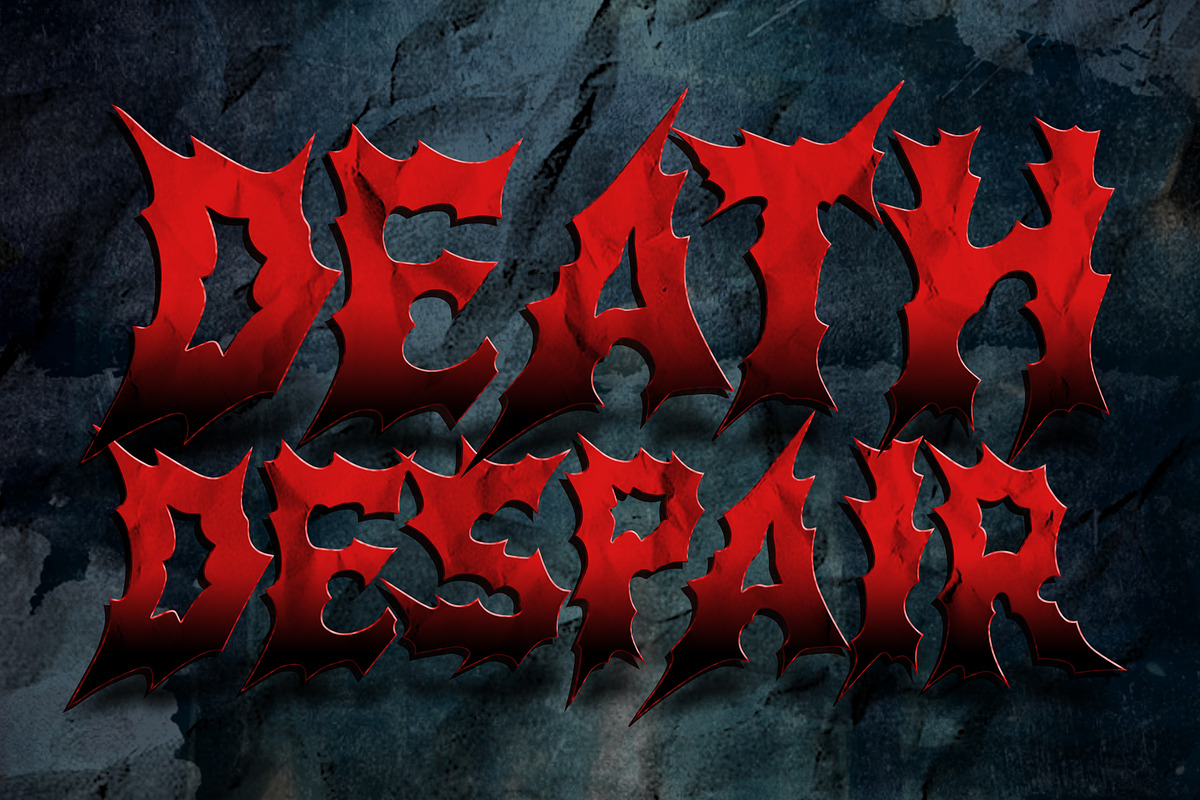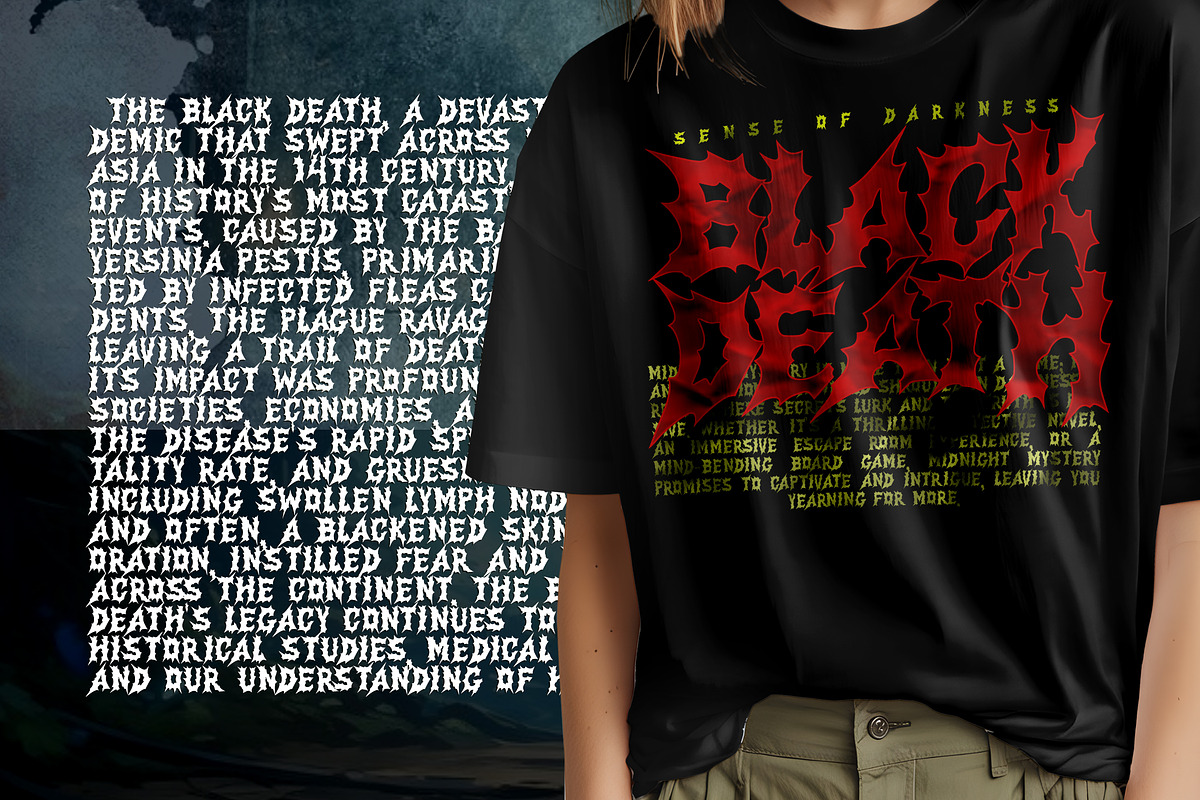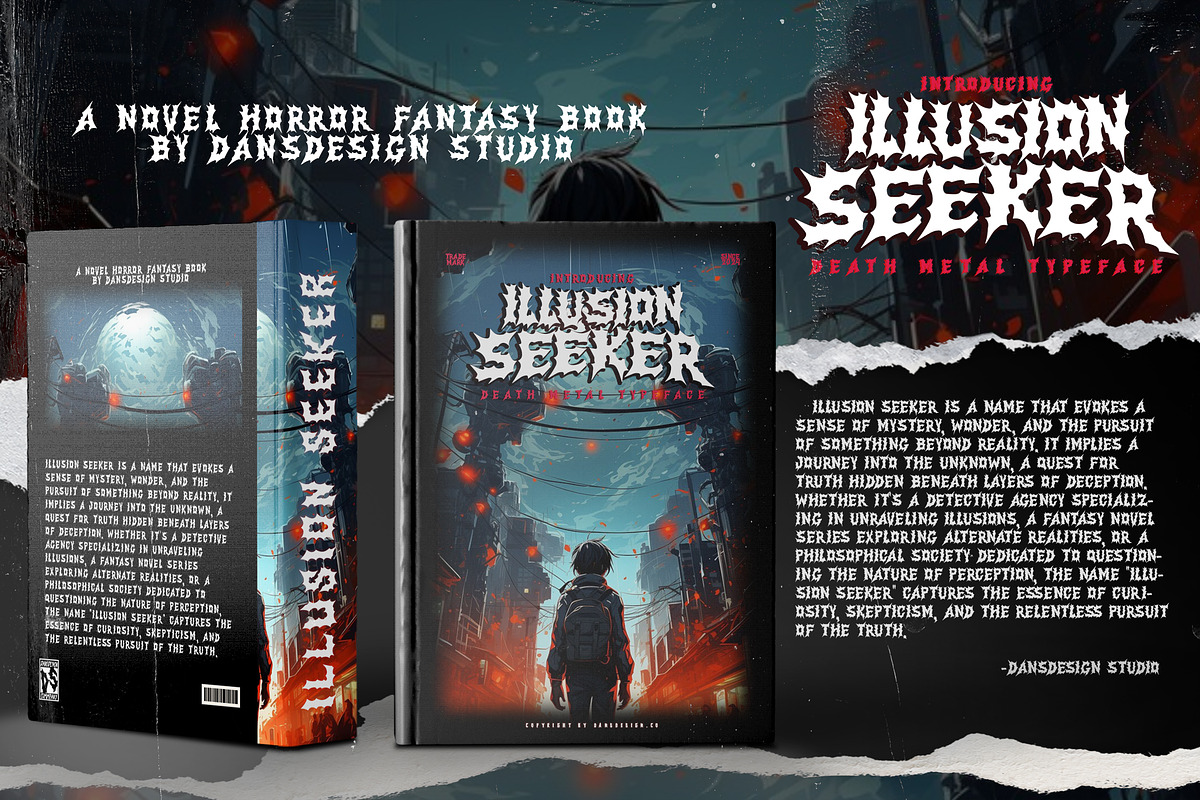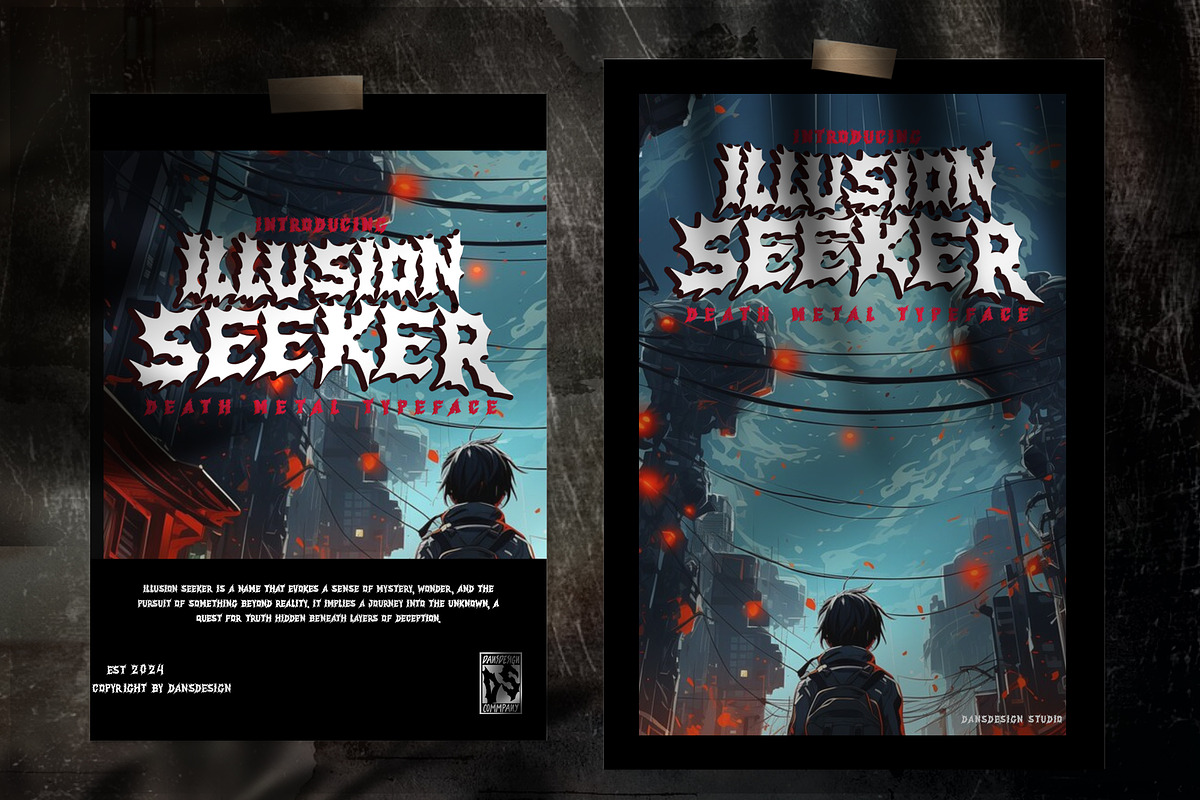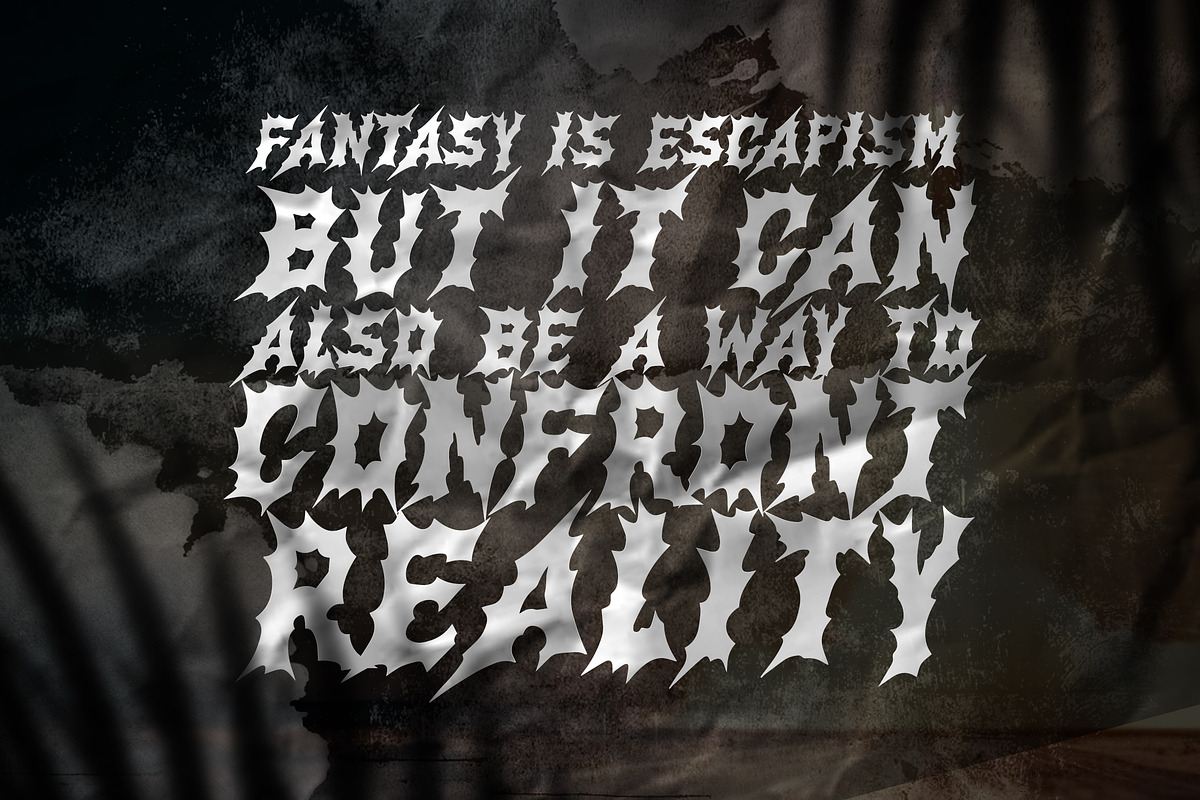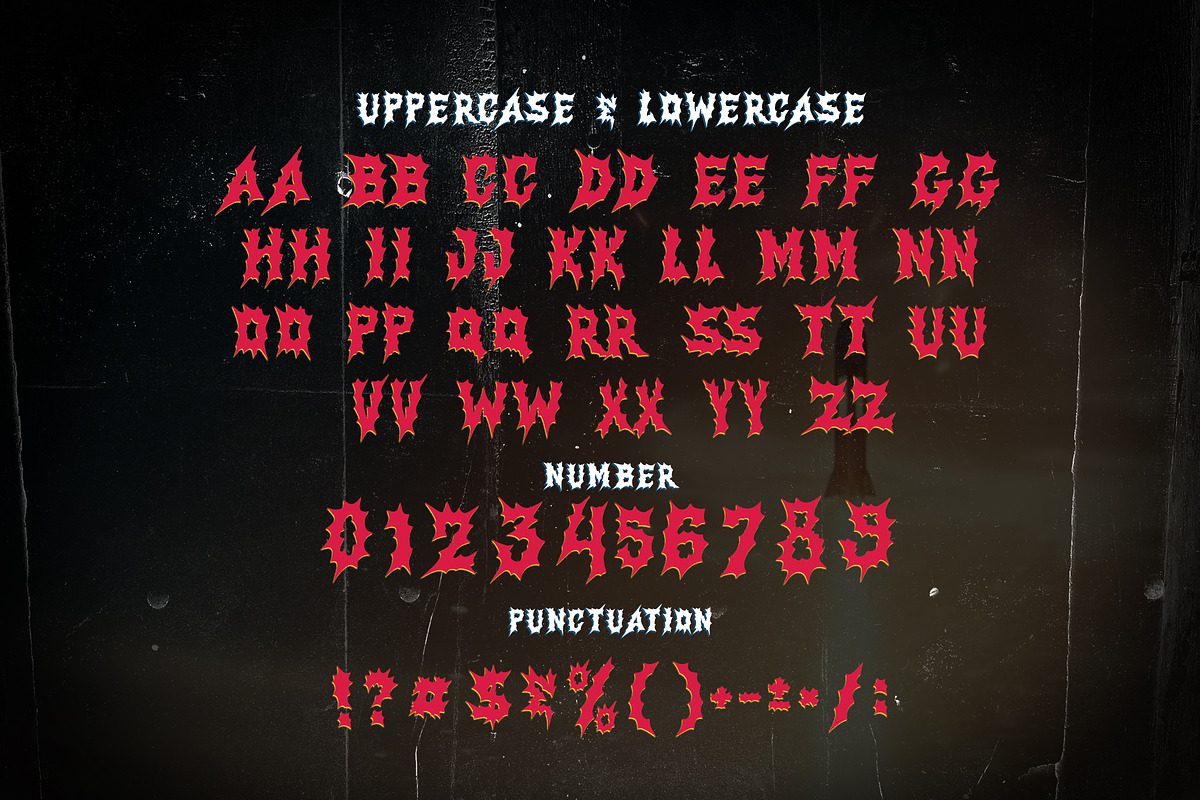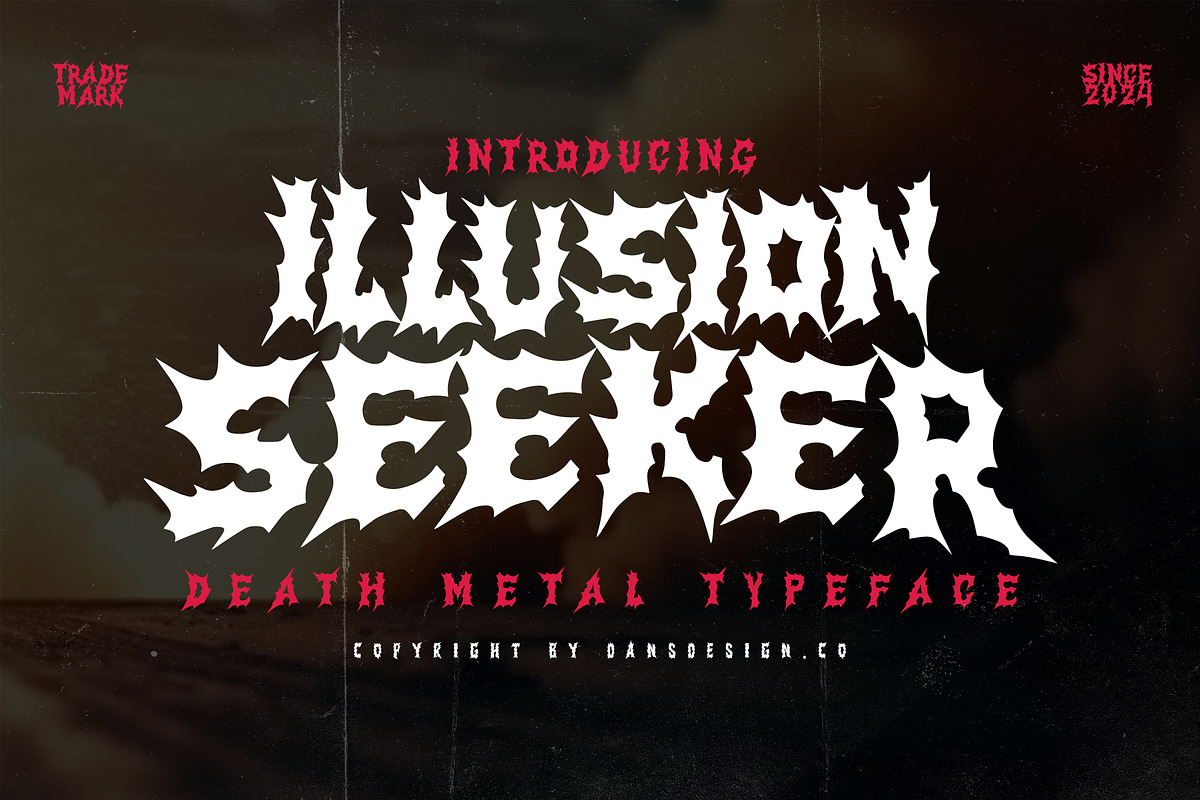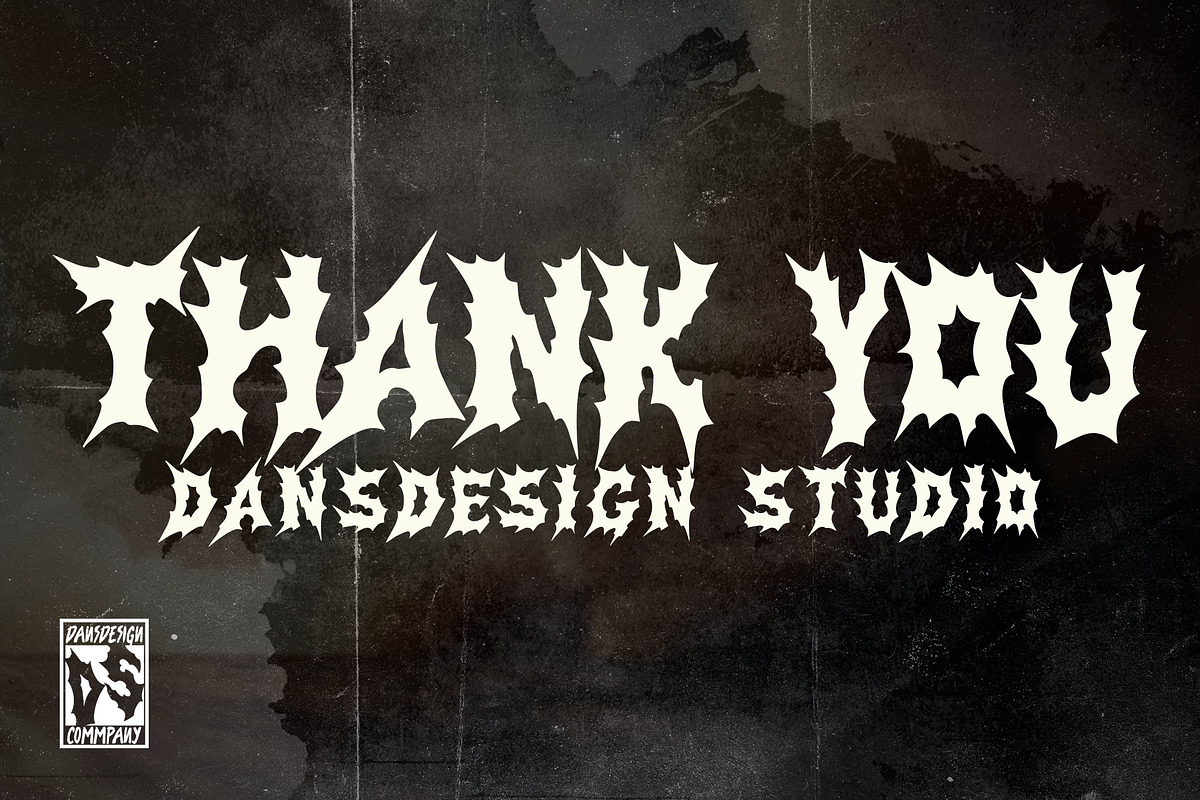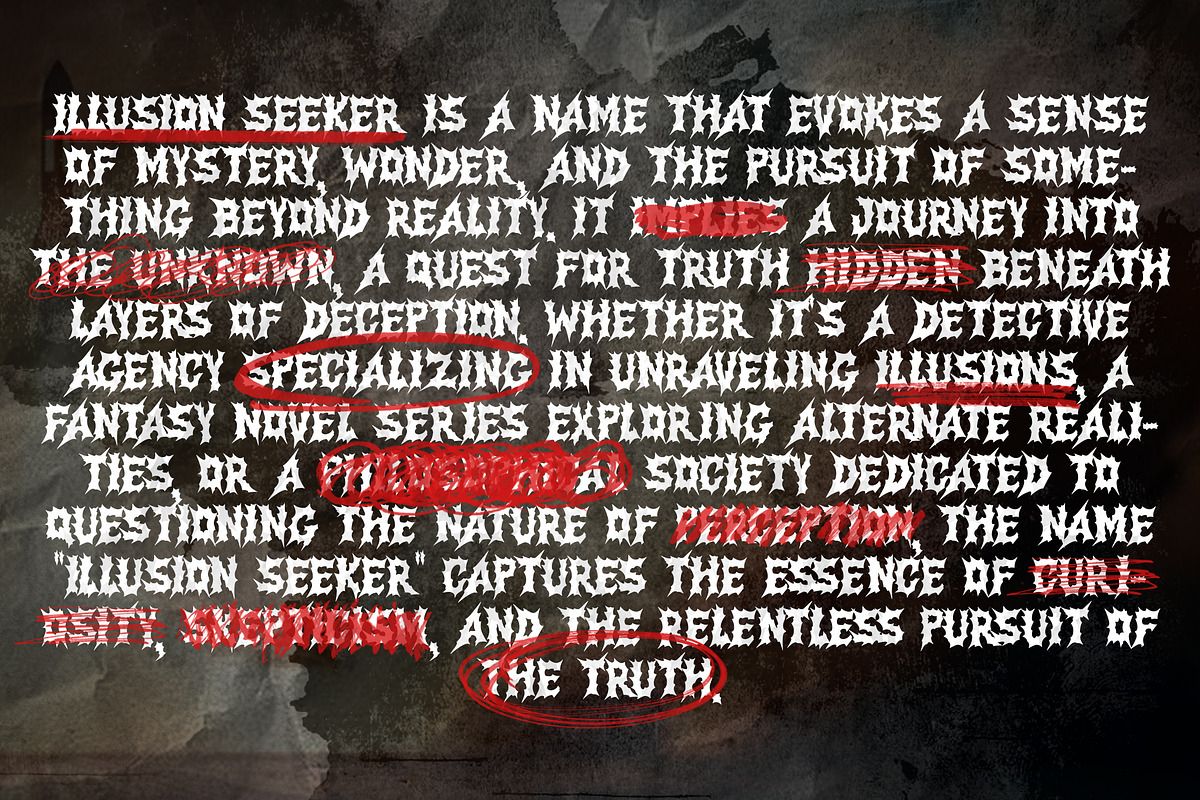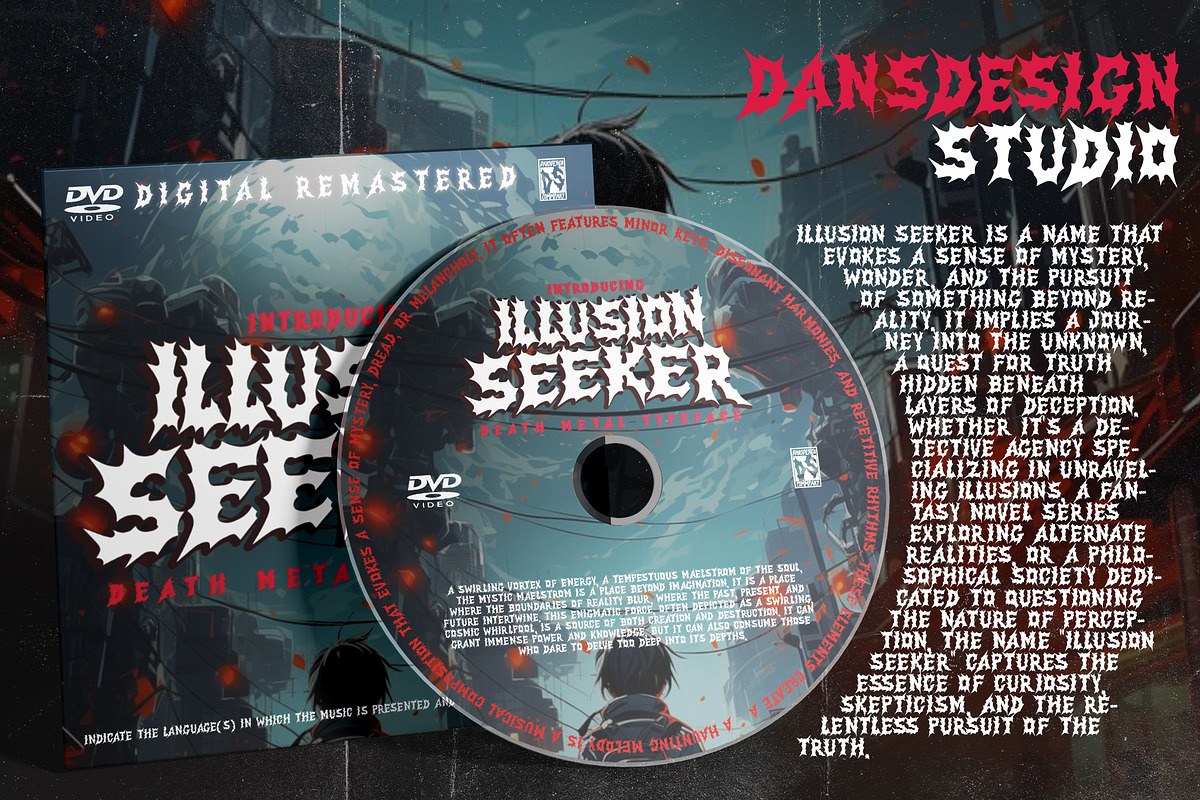
Illusion Seeker Metal Blackletter
Illusion Seeker Horror Blackletter Metal Font is a distinct, highly detailed Metal Horror Blackletter Display Font. It would make a great choice for exquisite retro-urban designs, business branding, logos, Apparel designs, and more. Illusion Seeker Horror Blackletter Metal Font (OTF/TTF) Illusion Seeker Horror Blackletter Metal Font (WEB TT/PS)